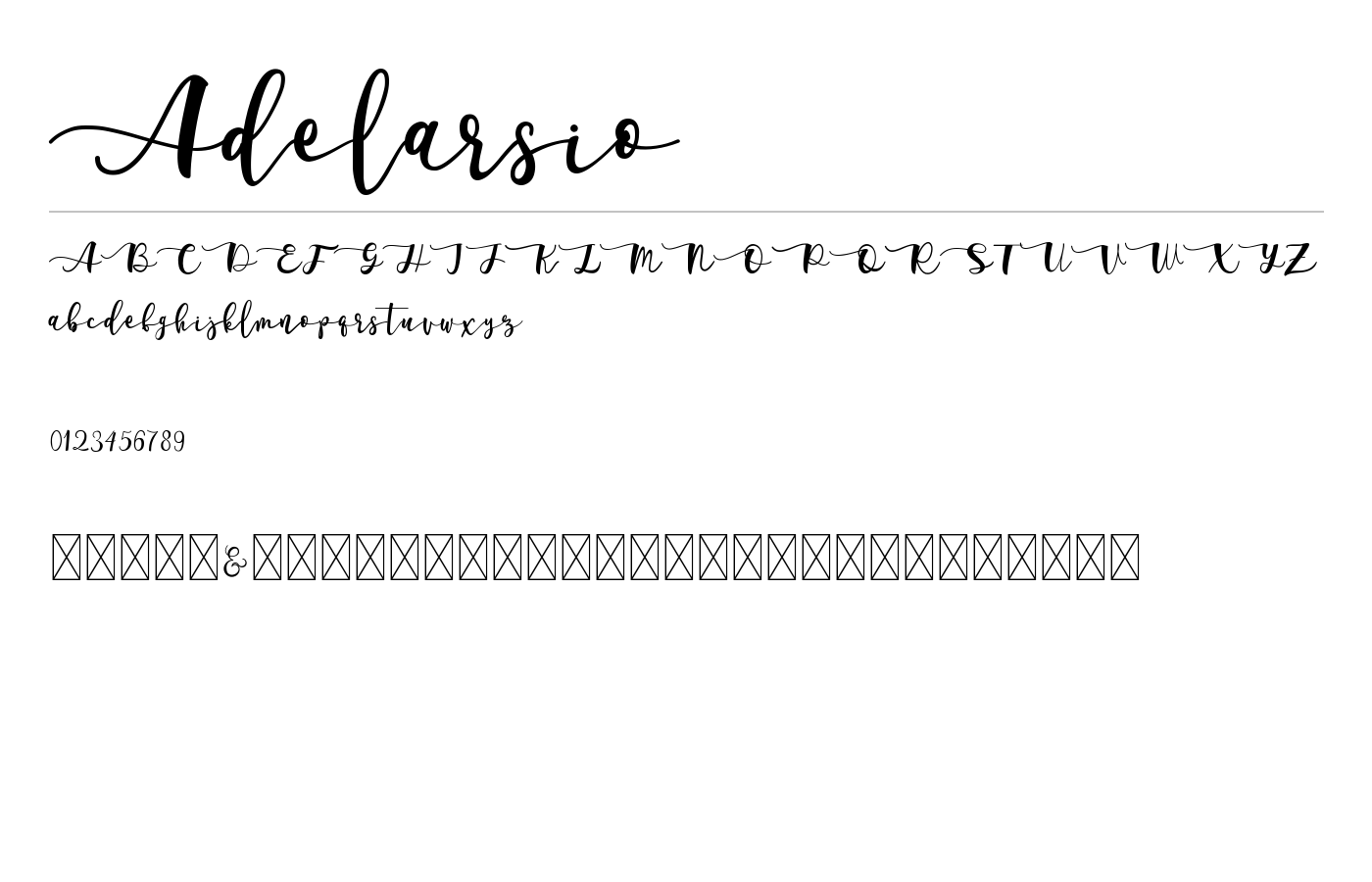
Adelarsio is an elegant handwritten script font characterized by flowing, delicate strokes and a graceful, airy feel. Its slender letterforms and fine contrast give it a sophisticated, romantic personality, making it perfect for wedding invitations, branding, and any design that demands a personal, stylish touch. This font shines in decorative uses where charm and elegance are key.
Adelarsio Font